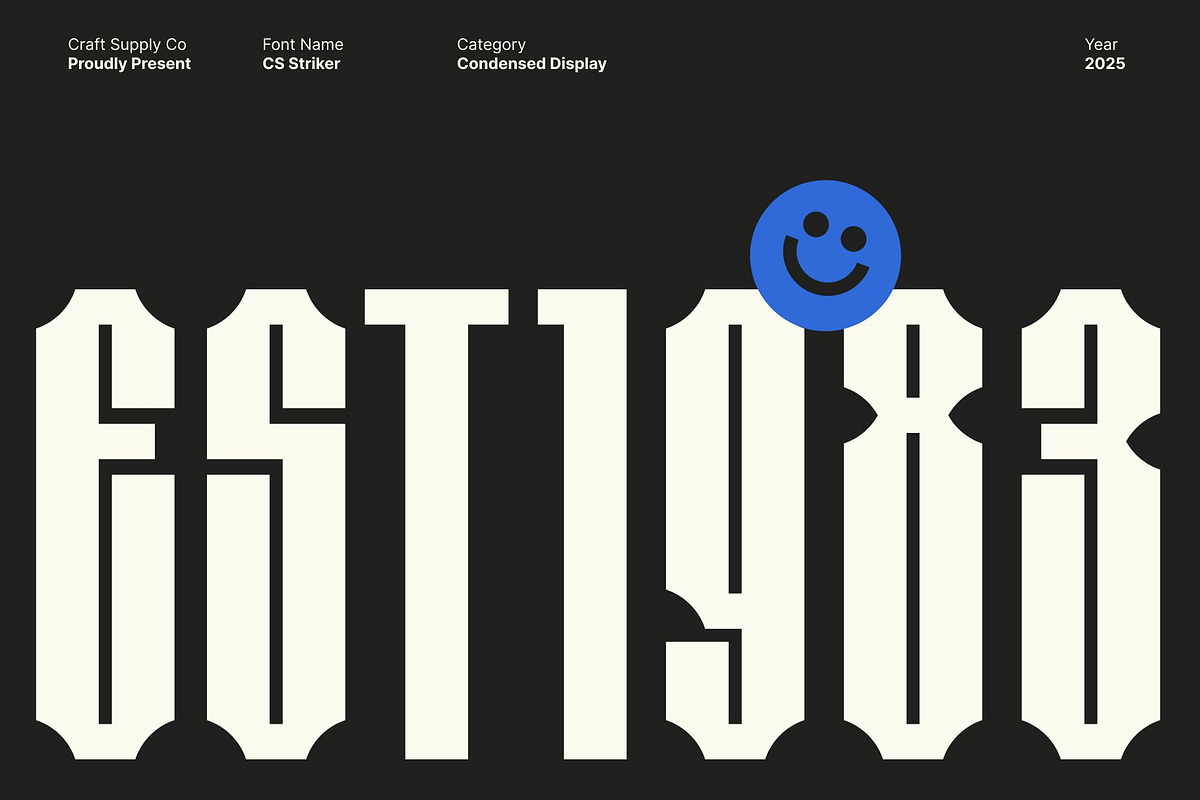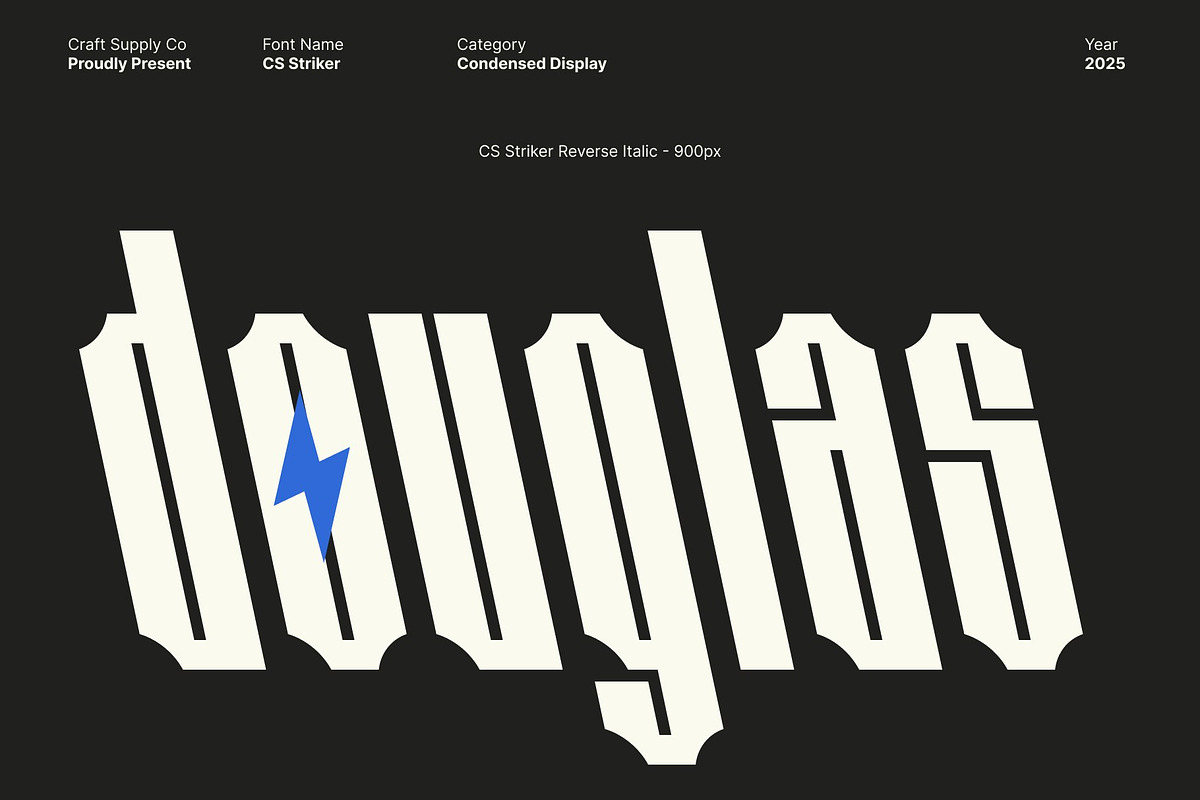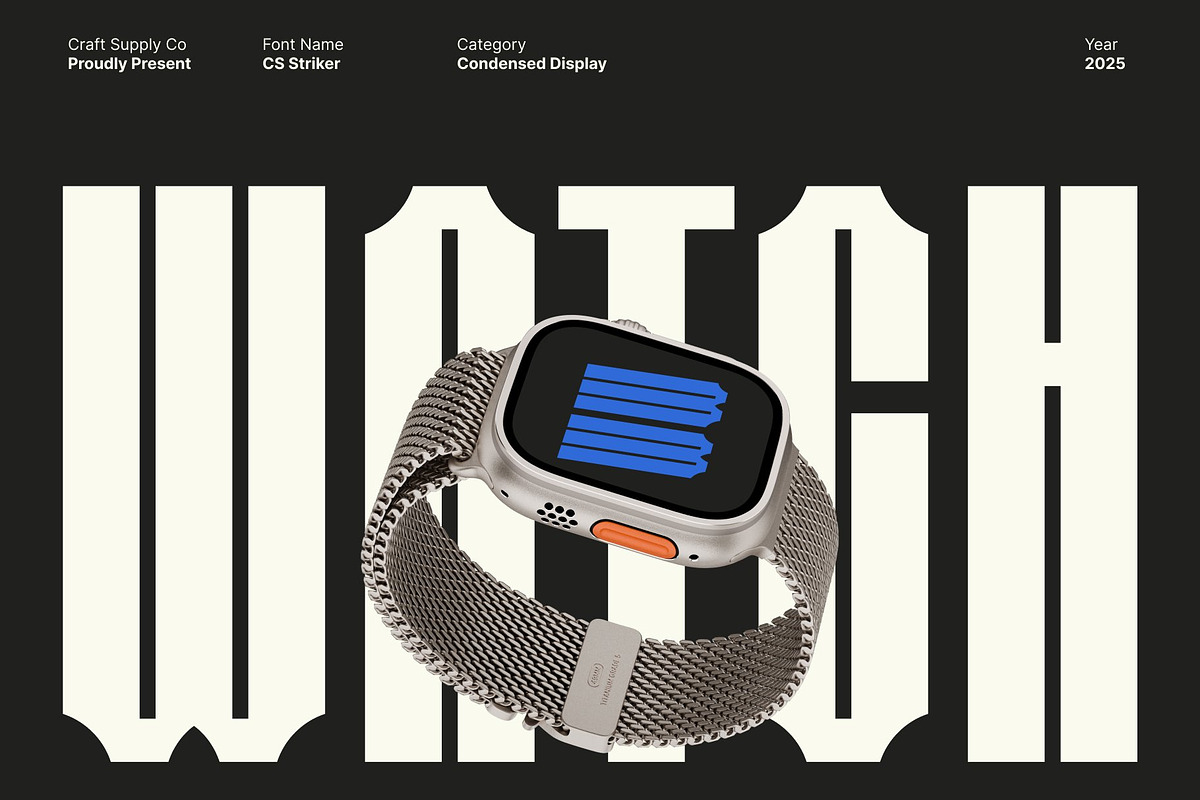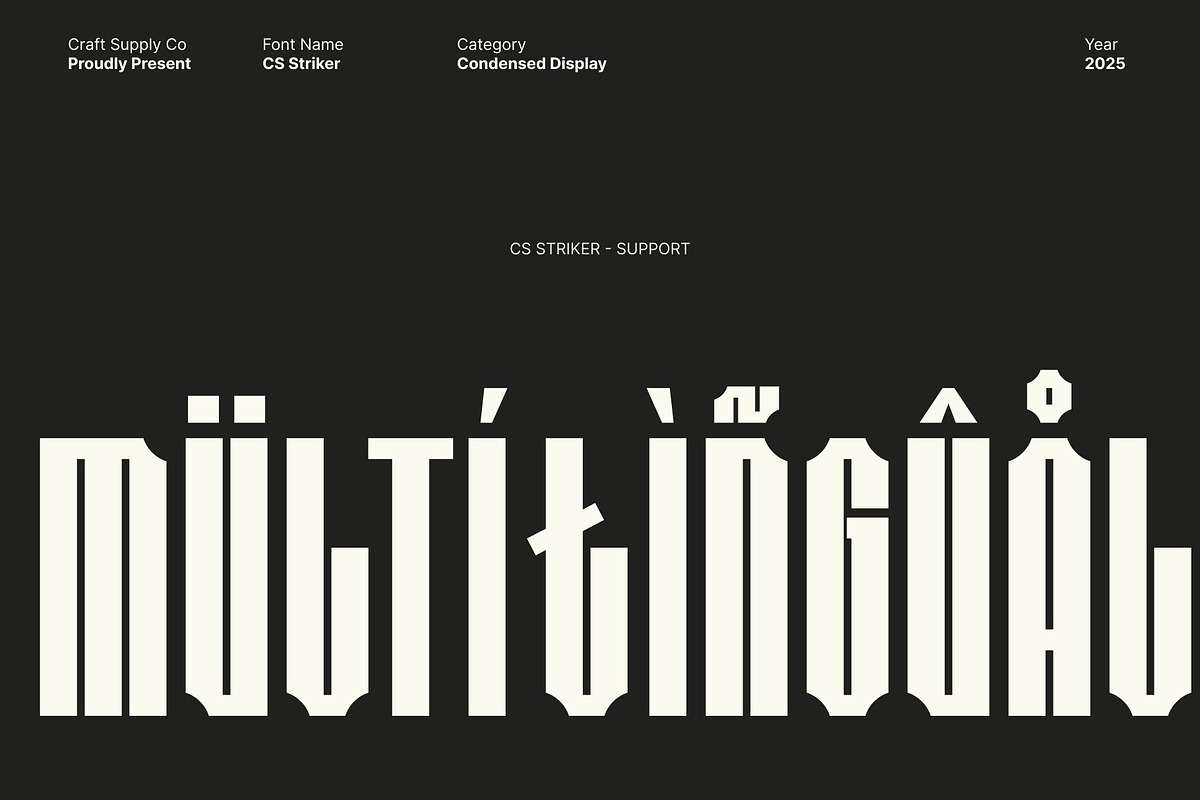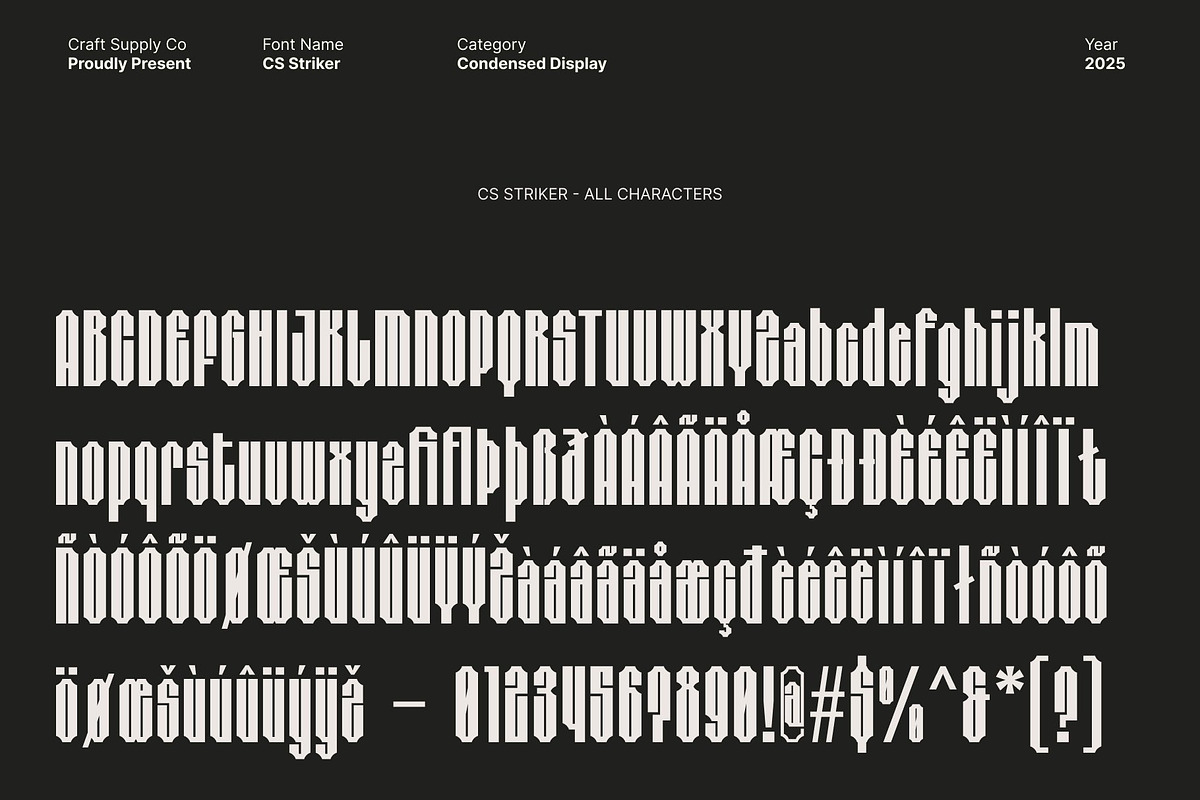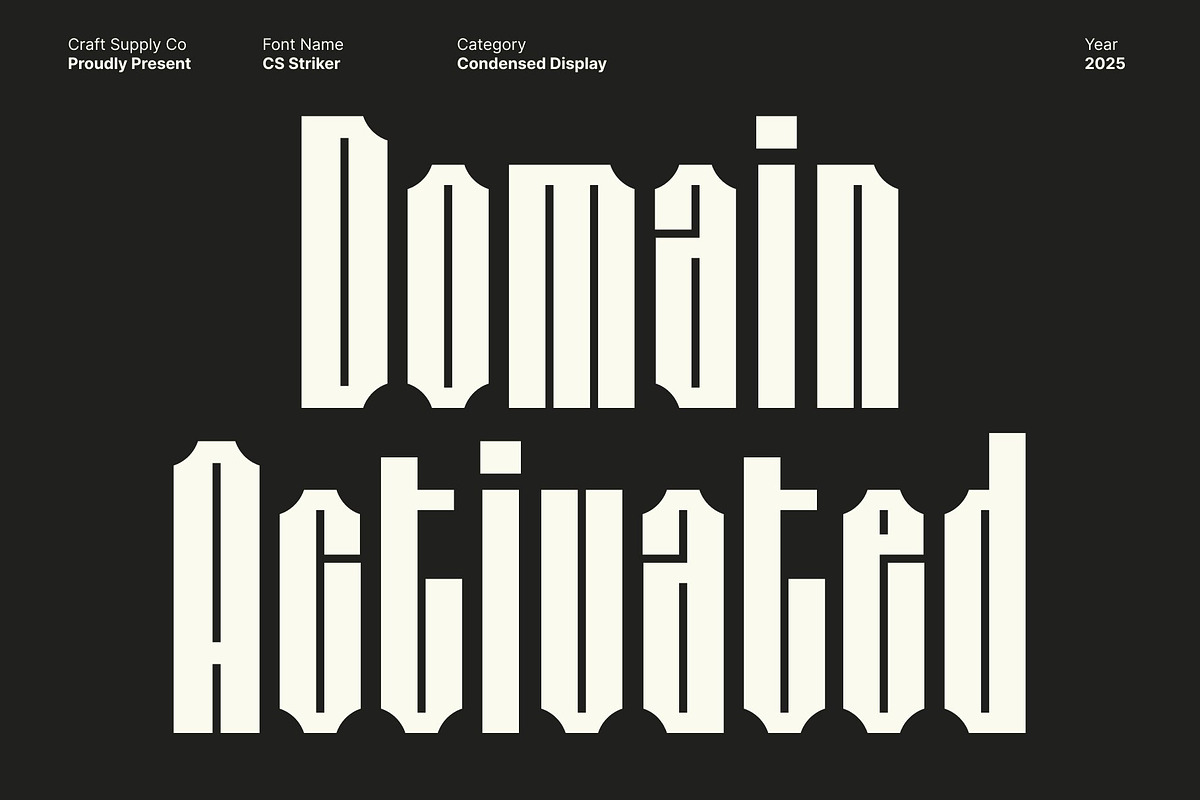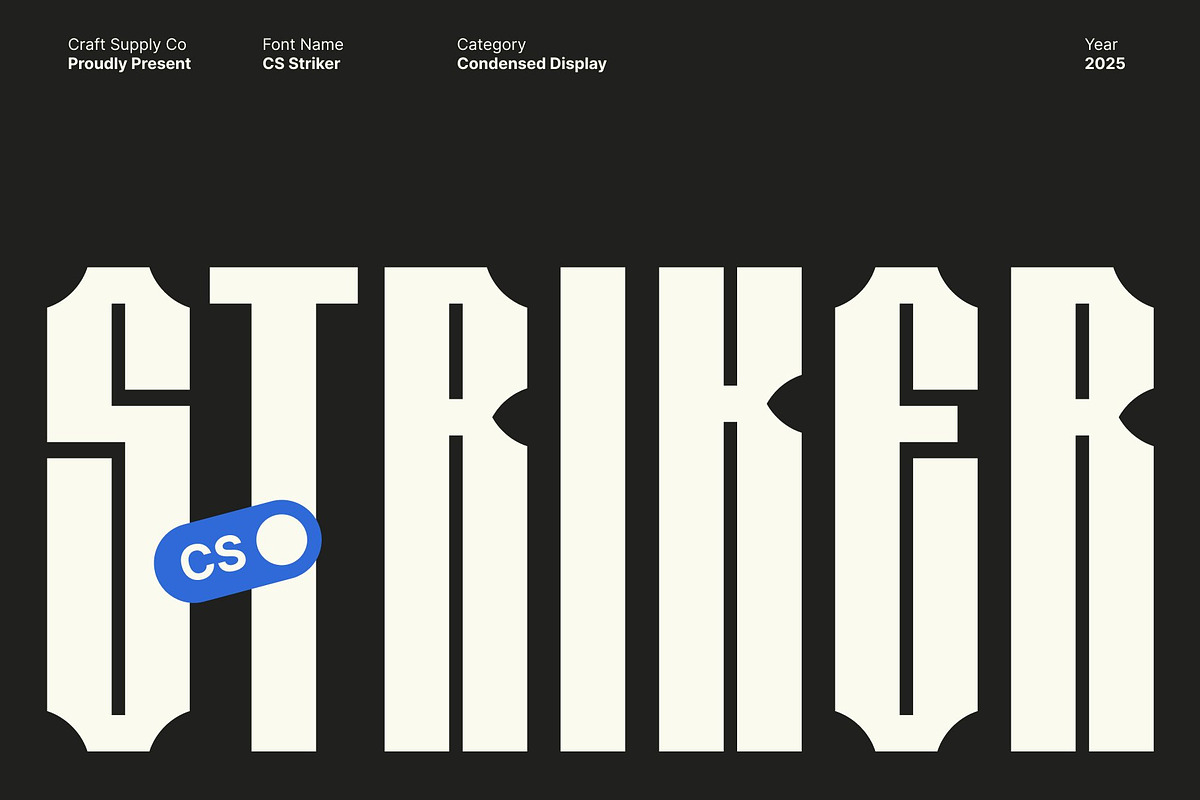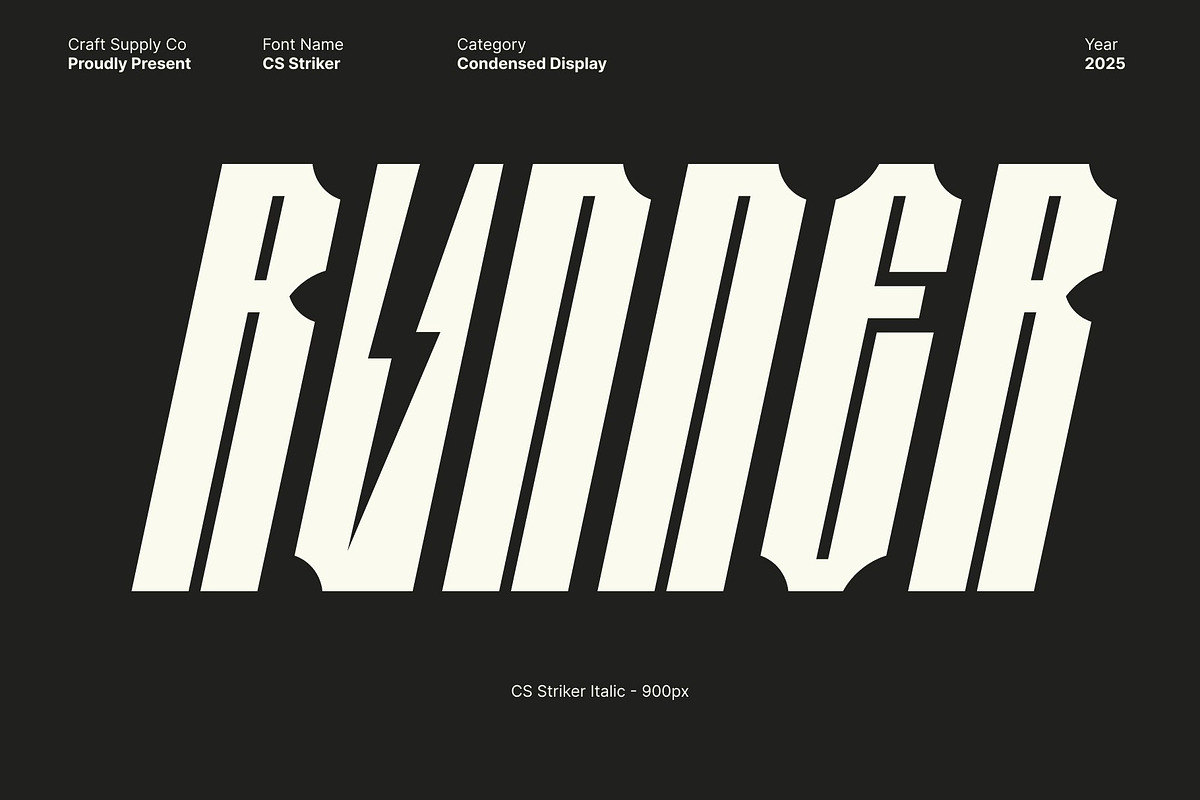
CS Striker – Condensed Display
CS Striker – Condensed Power with Industrial Precision
Condensed Sans Serif with Industrial Edge This is a sans serif font built with a condensed structure and bold forms, delivering a precise and technical aesthetic. Its clean lines and geometric shapes give it a modern, industrial feel, making it a perfect choice for projects that demand authority and strength.
Strong and Masculine Design Designed with a robust, masculine character, this font communicates confidence and professionalism. The condensed proportions allow it to stand out in tight spaces while maintaining excellent readability, creating a commanding visual presence.
Perfect for Posters, Branding, and Headlines Whether used for bold headlines, impactful branding, or attention-grabbing posters, this font ensures your design captures immediate focus. Its industrial aesthetic adds an energetic, modern vibe to creative projects across print and digital media.
Versatile and Eye-Catching This font combines condensed efficiency with striking boldness, making it versatile for a variety of design applications. Ideal for technical layouts, corporate branding, or modern editorial work, it brings clarity, strength, and a visually dynamic edge to every project.